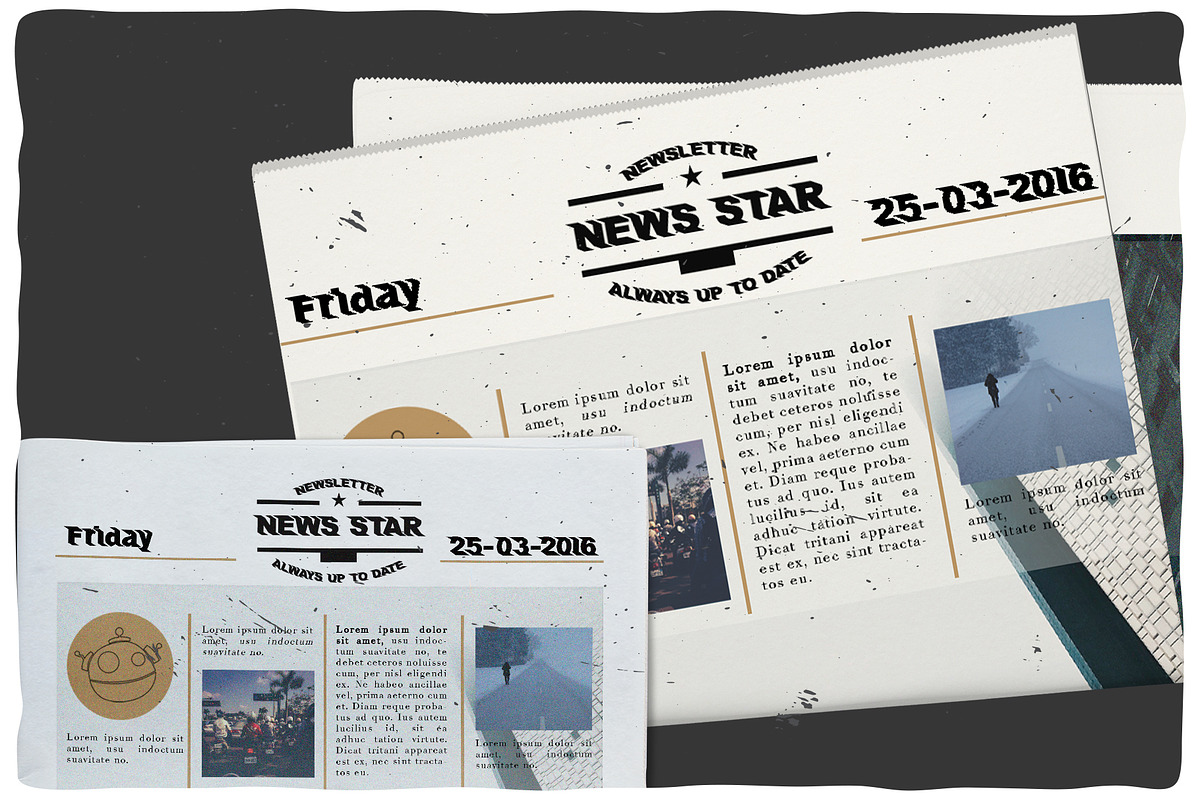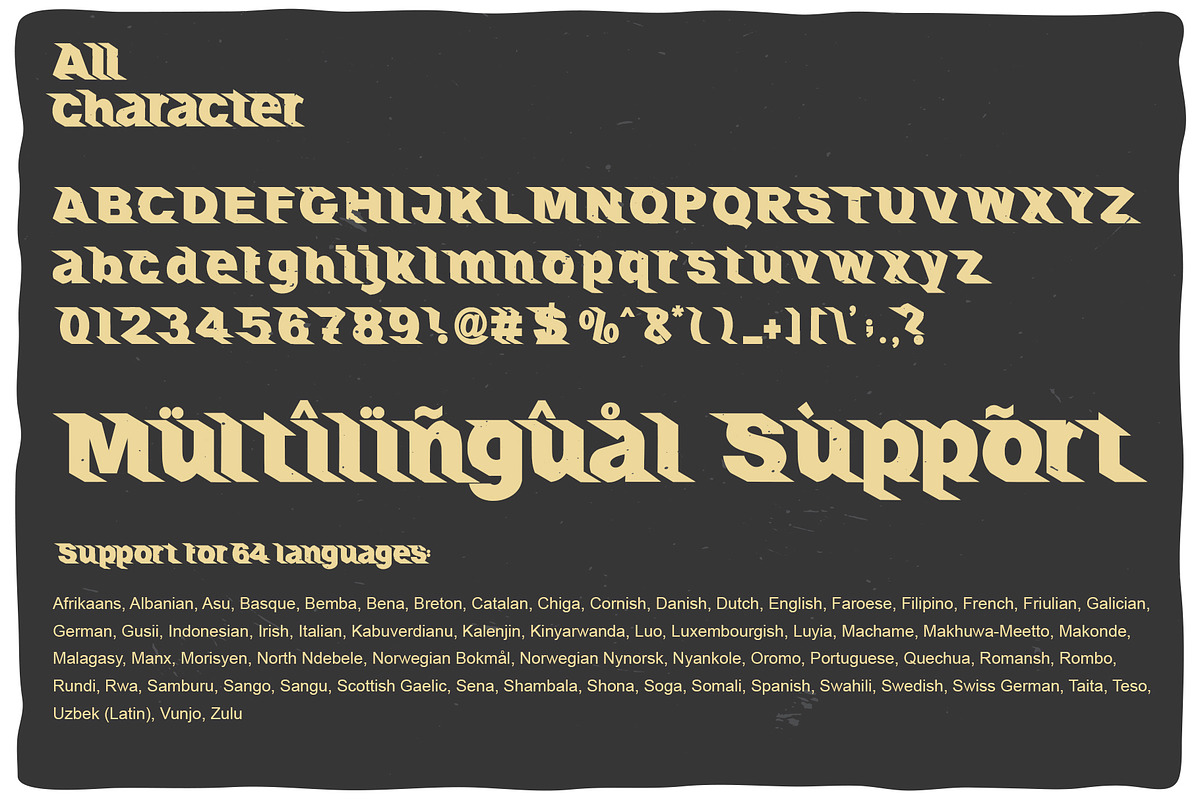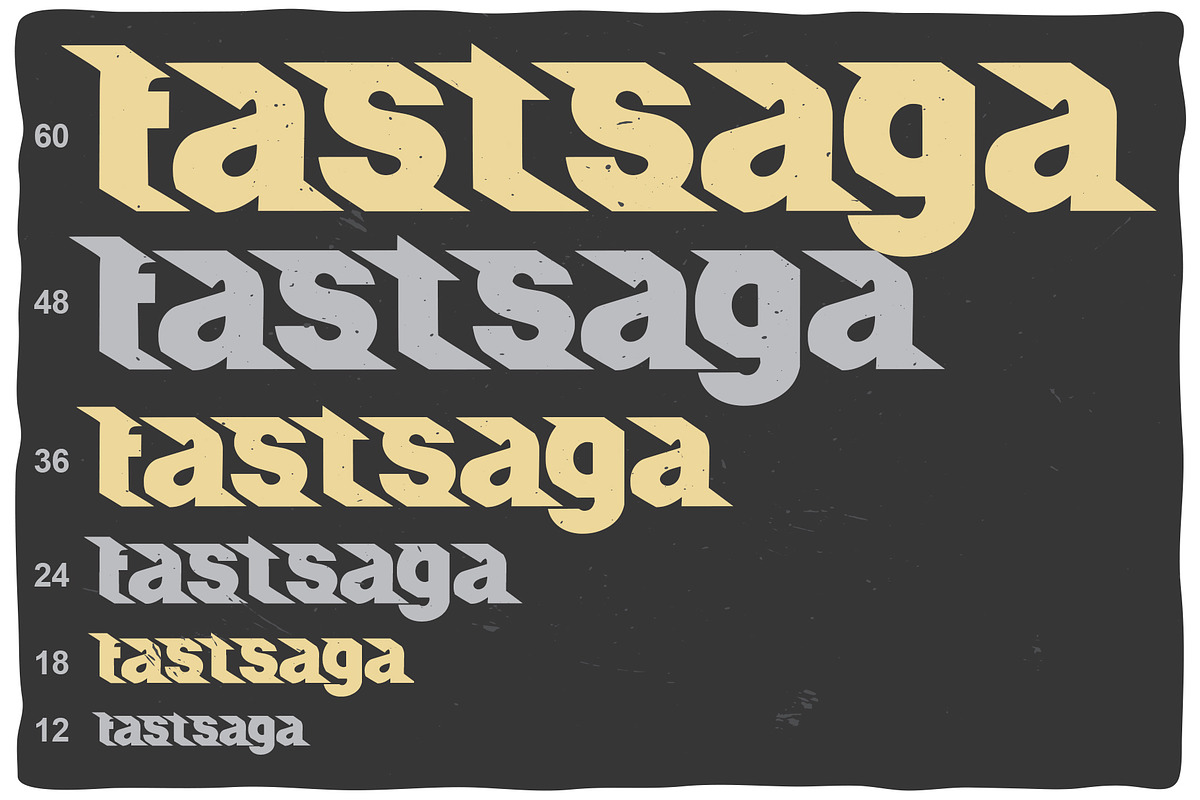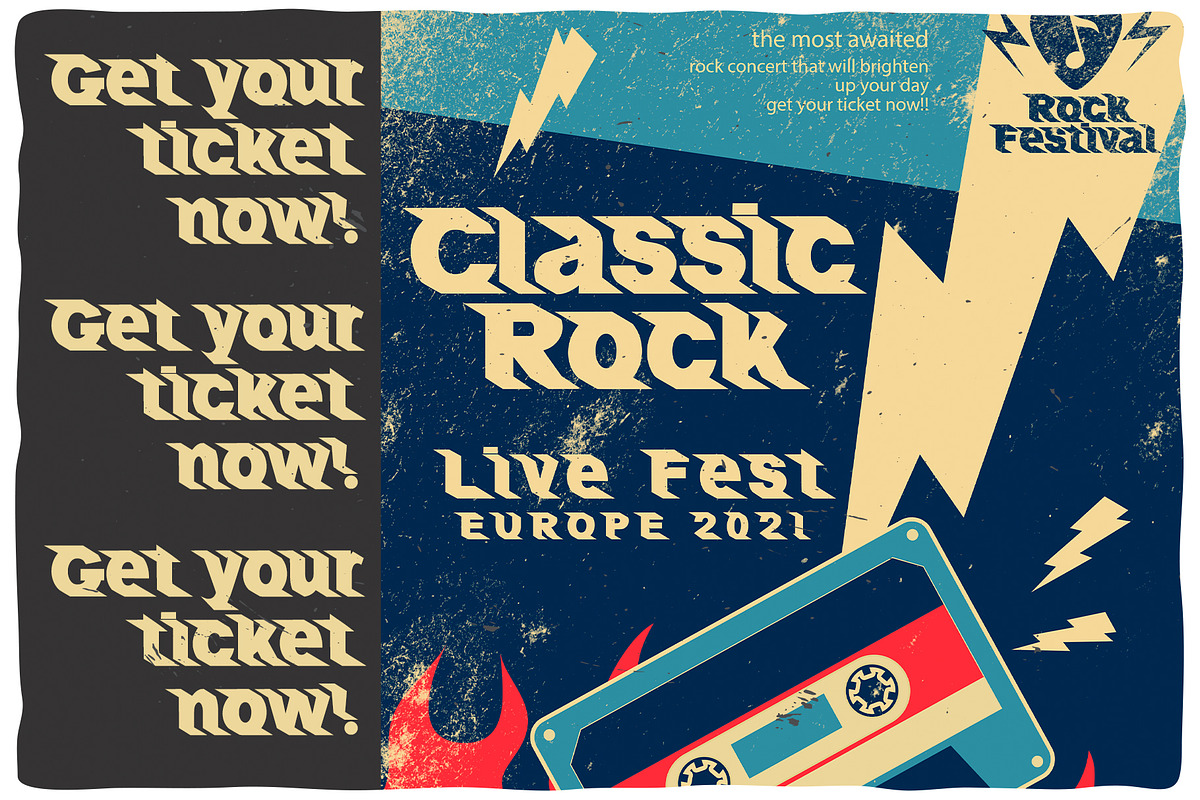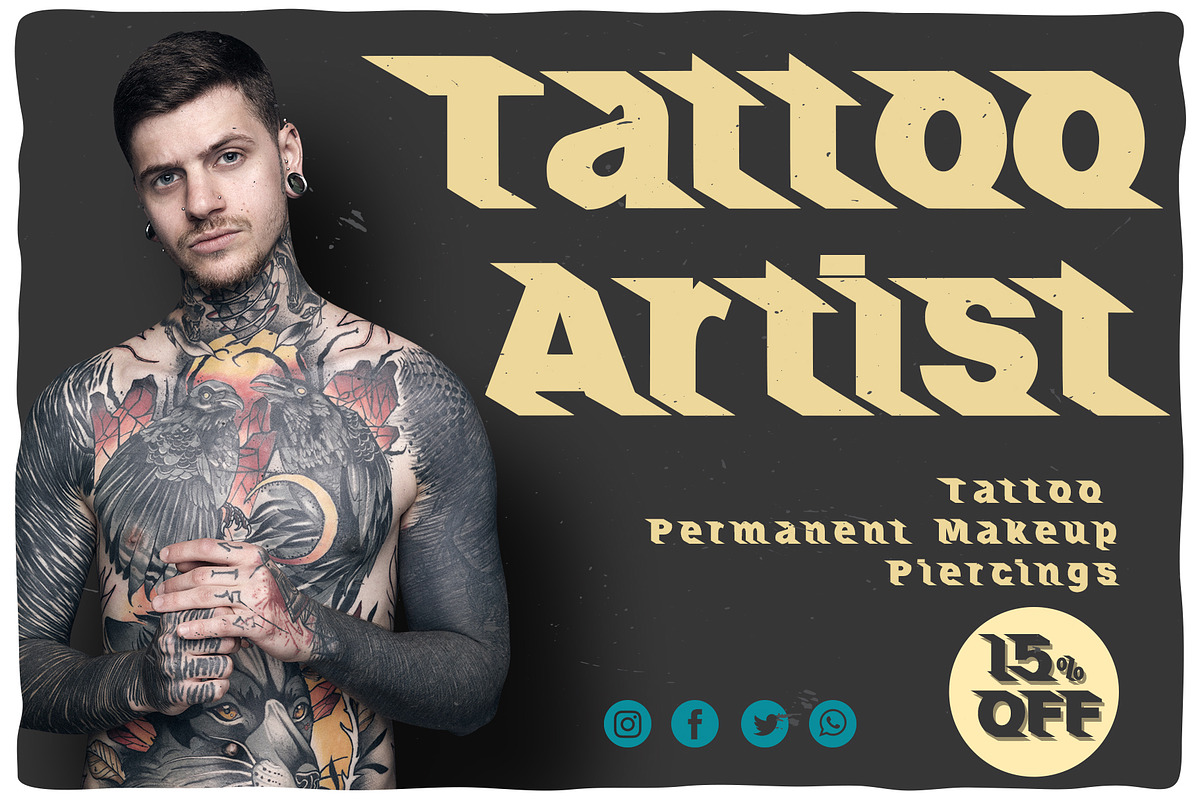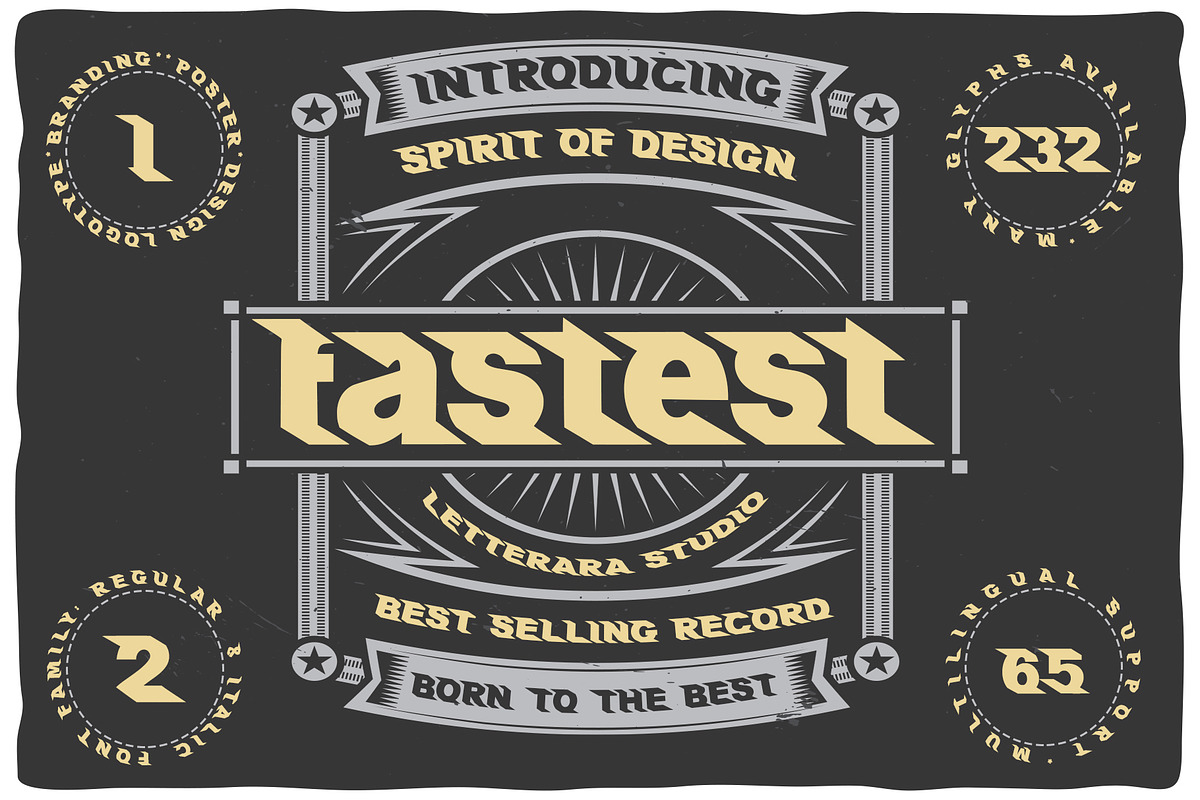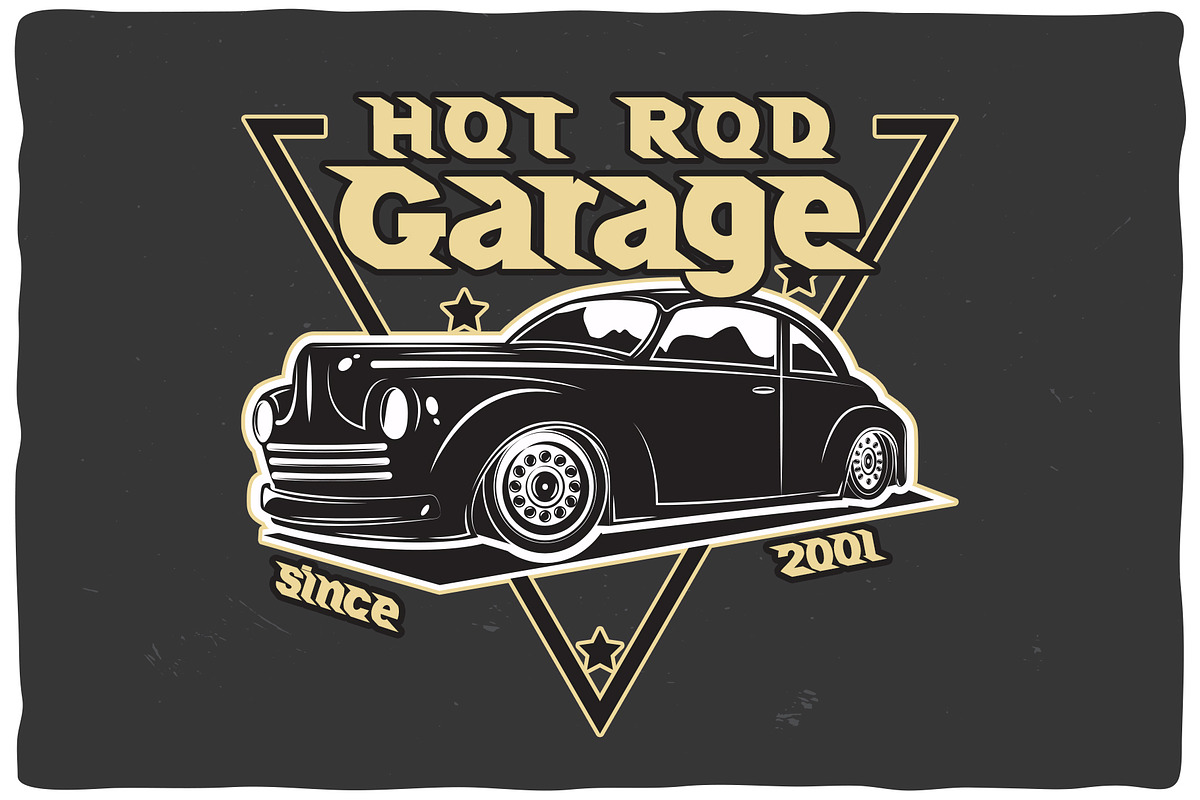
Fastest
Fastest is a unique and modern sans serif font, specially designed for headlines, big text, branding, logotypes, marketing graphics, banners, posters, signage, and display usage. It can easily be matched to an incredibly large set of projects, so add it to your creative ideas and notice how it makes them stand out! This font is PUA encoded which means you can access all of the amazing glyphs.
- Support multilingual; ä ö ü Ä Ö Ü ß ¿ ¡